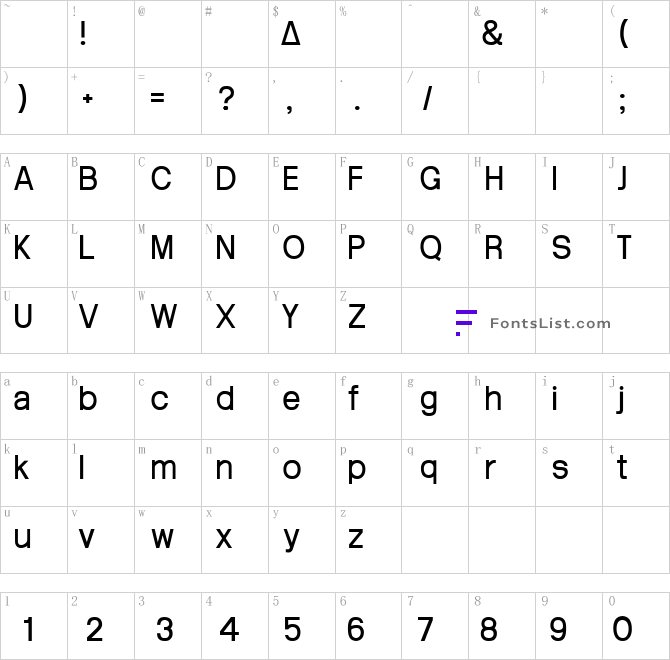
- Font Name:Atrian 3
Atrian-3.ttf is a very beautiful artistic font, Atrian-3.ttf is widely used in the design and printing of various books and pictures,Atrian-3.ttf has a strong visual impact,Atrian-3.ttf is a commonly used font in newspapers, magazines and books, and is used in posters, e-commerce Poster design, store design, logo design, font design and other fields.Atrian-3.